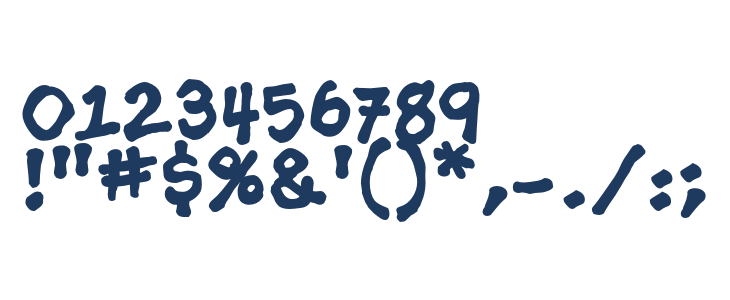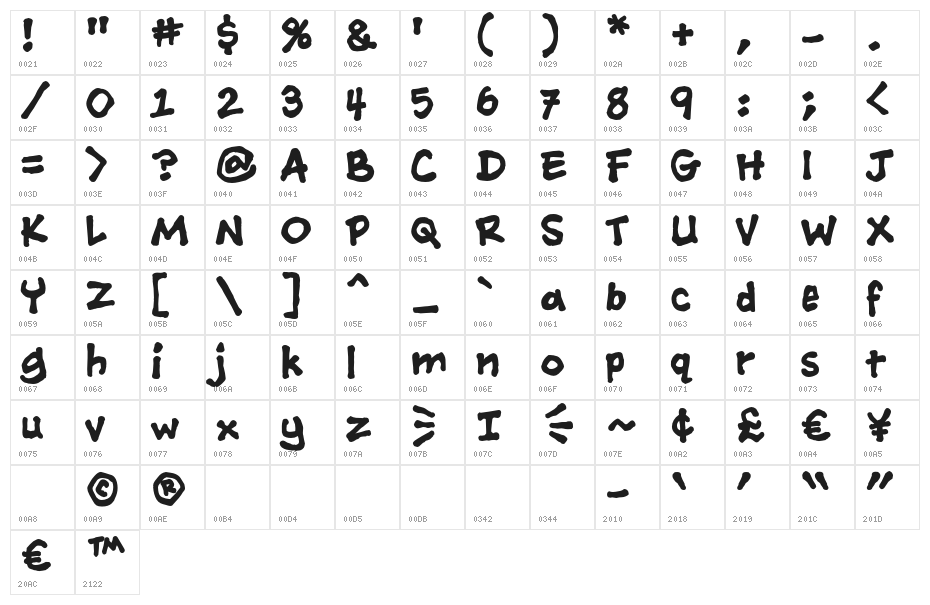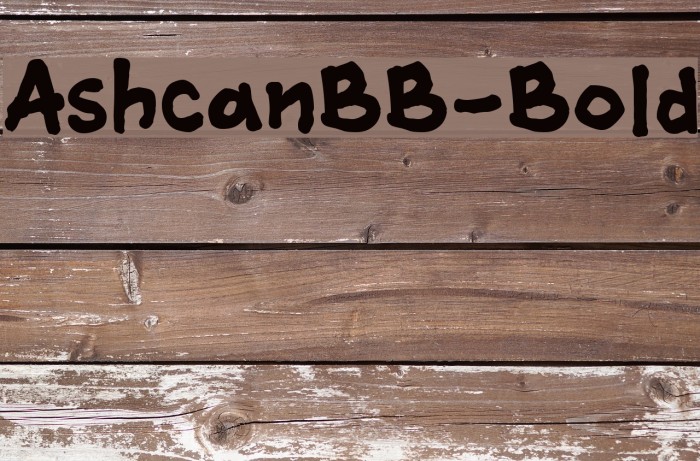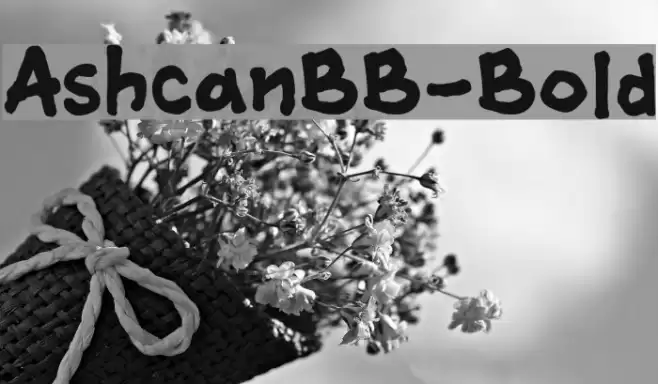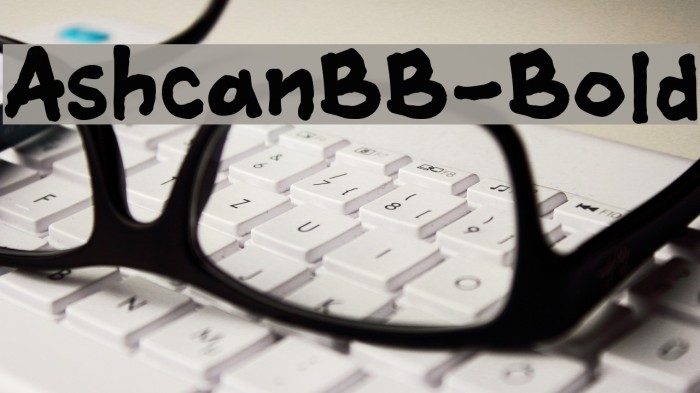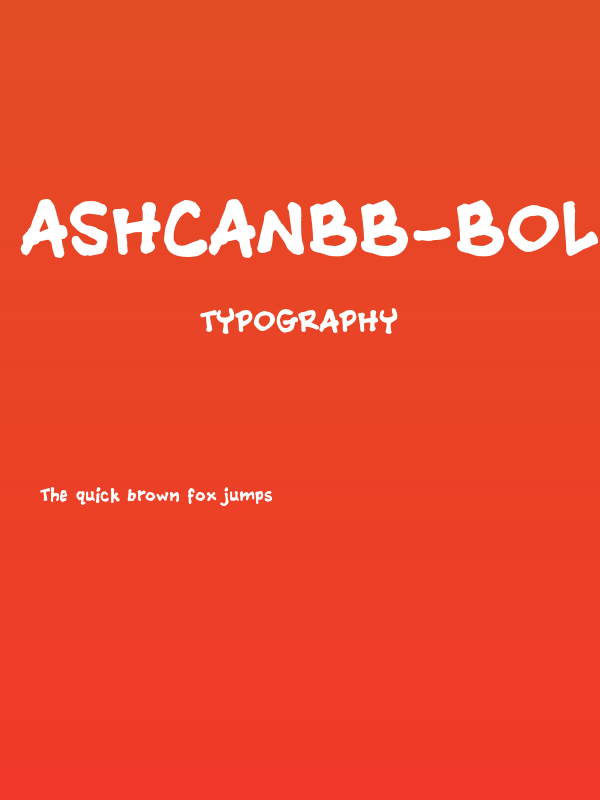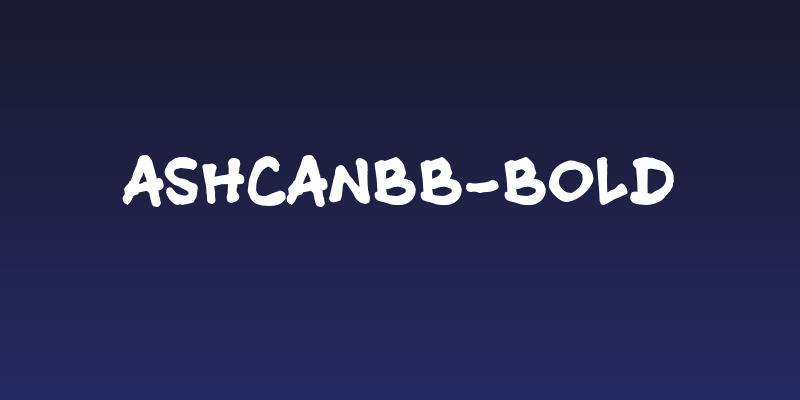
AshcanBB-Bold Font
AshcanBB-Bold Description
This font features a bold, expressive style with a hand-drawn appearance. The characters are thick and slightly irregular, giving a playful and informal feel. The uppercase and lowercase letters maintain a consistent weight, while the numbers and special characters follow the same bold and dynamic style. The strokes are uneven, adding to the casual and artistic vibe. This font is perfect for projects that require a personal touch or a creative flair, such as posters, invitations, or branding materials.
Fonts by www.blambot.com
| Proposed Projects | Ideal for creative projects like posters, invitations, branding, and artistic designs. |